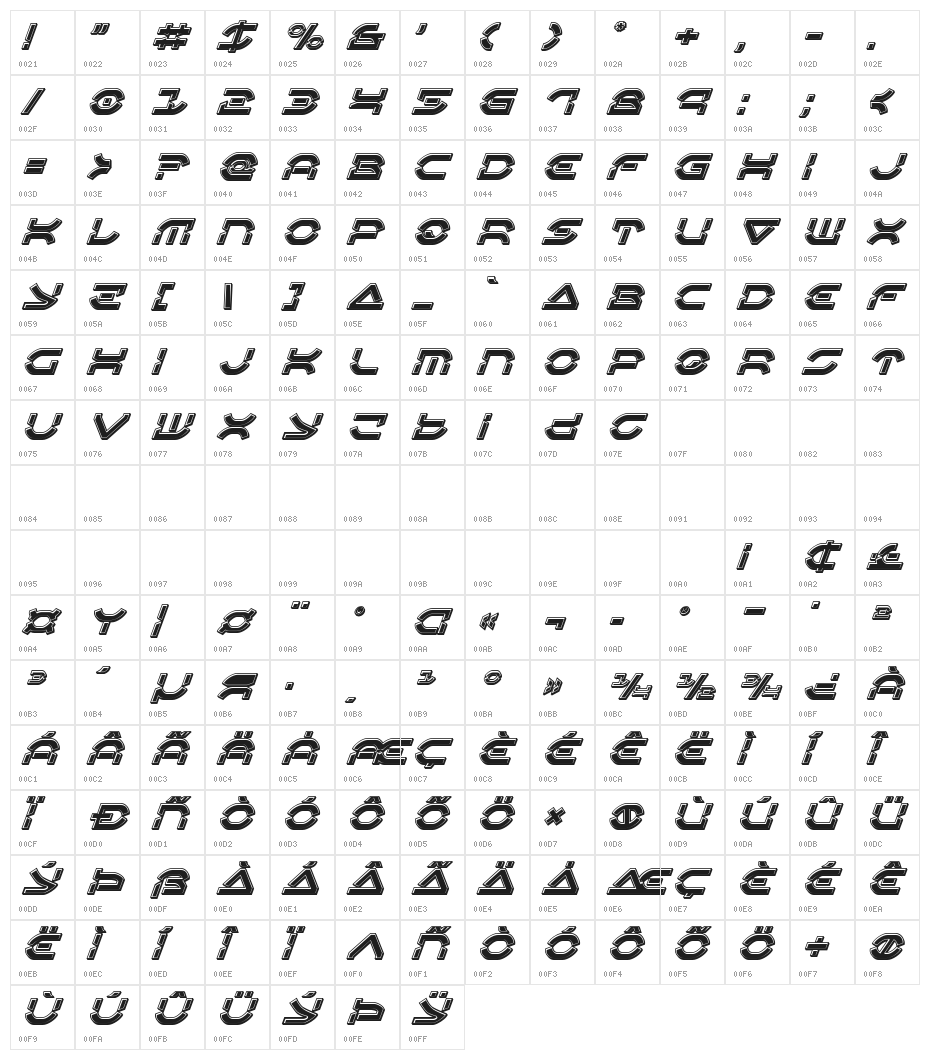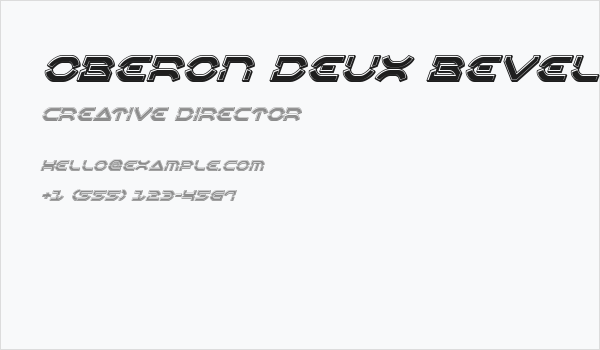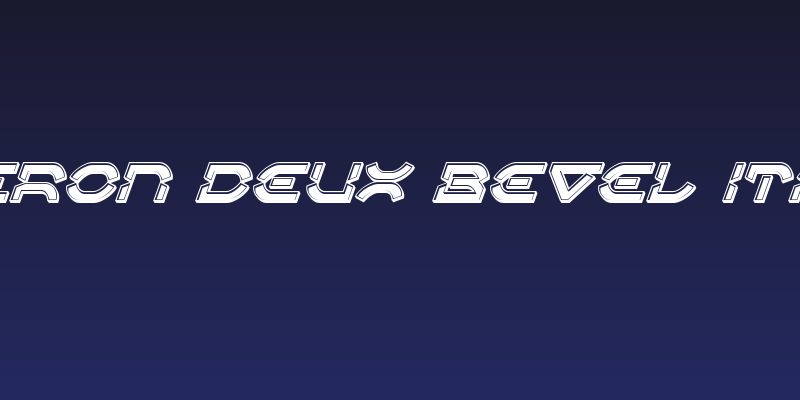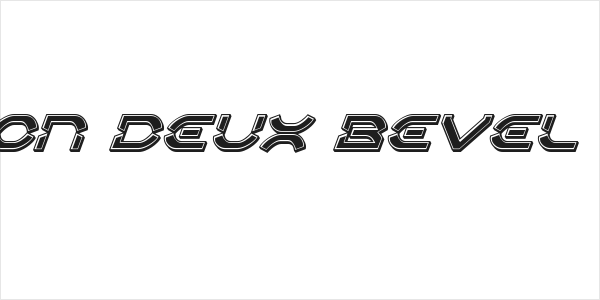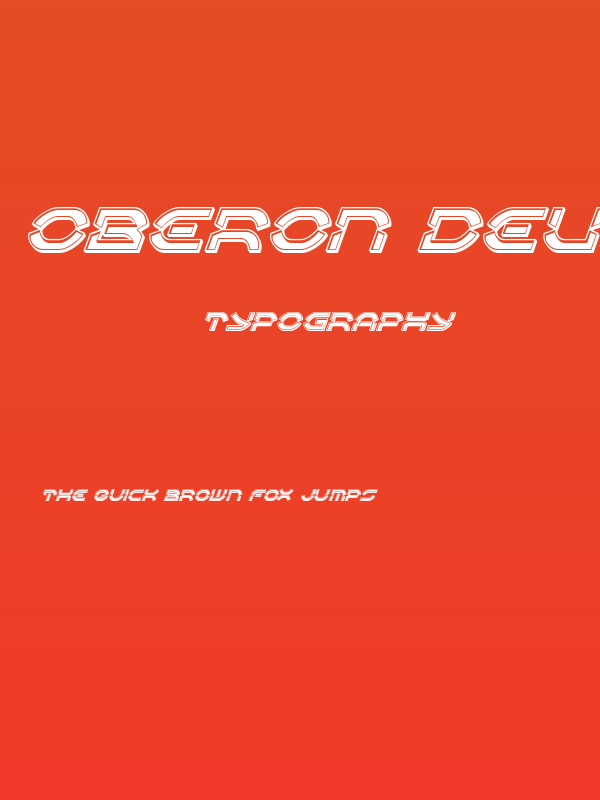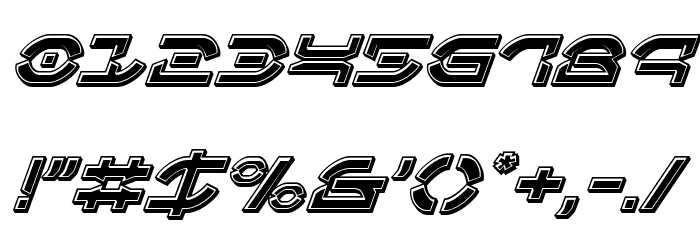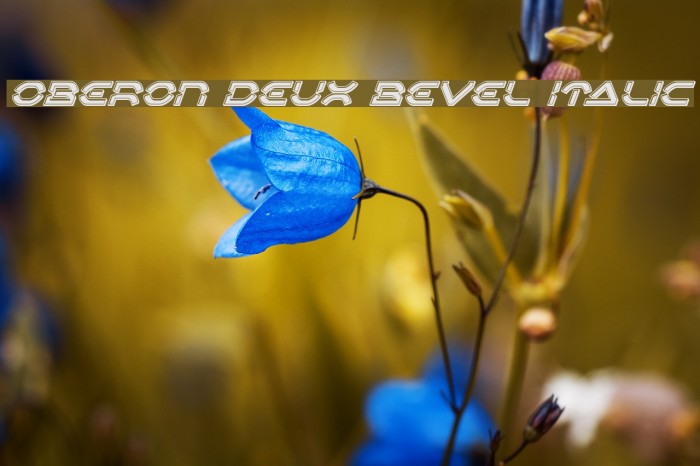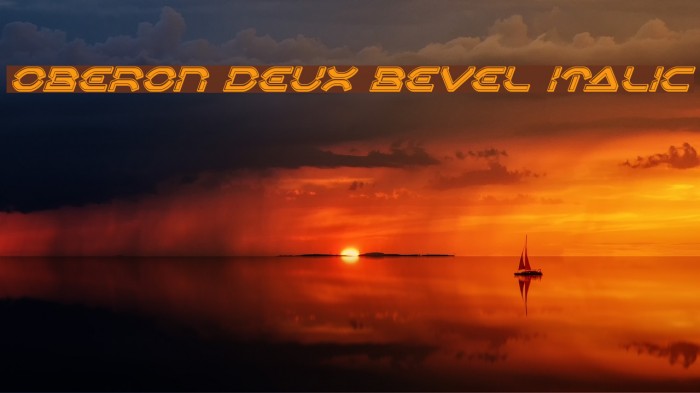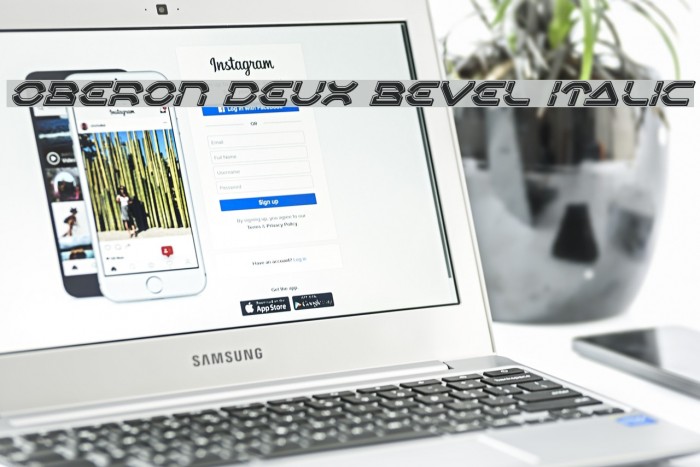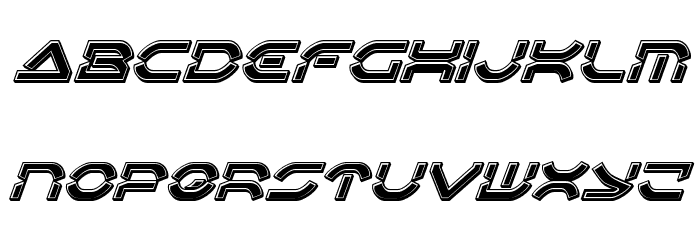
Oberon Deux Bevel Italic Font
Oberon Deux Bevel Italic Description
This font features a bold, futuristic design with a distinct bevel effect that gives it a three-dimensional appearance. The characters are italicized, adding a dynamic and forward-leaning aspect to the overall look. The strokes are thick and consistent, providing a strong visual impact. The font's geometric shapes and sharp angles contribute to its modern and edgy style. It includes a full set of uppercase and lowercase letters, numbers, and a variety of special characters, making it versatile for various design needs.
| Overall Style | Futuristic |
| Proposed Projects | Ideal for sci-fi themed projects, video game titles, tech branding, and modern poster designs. |